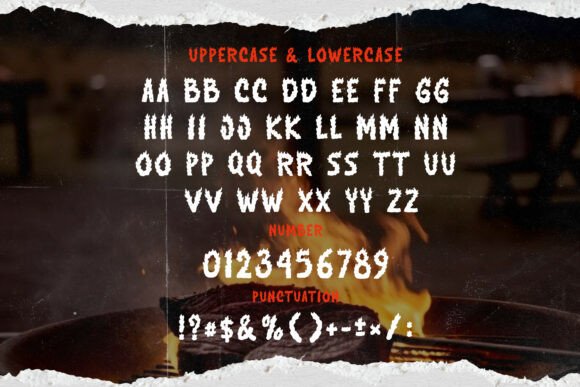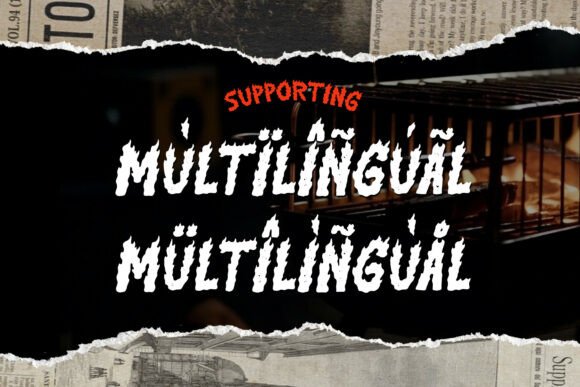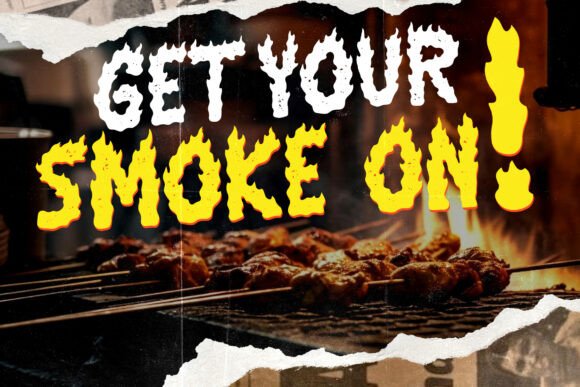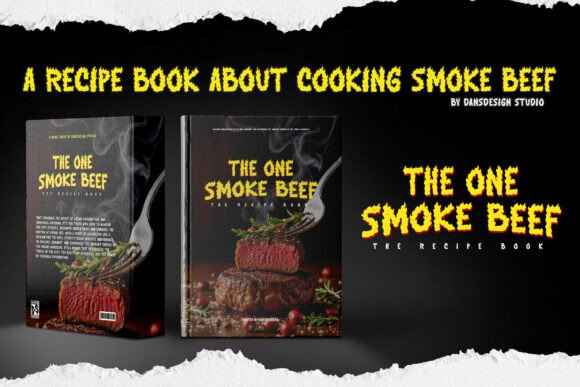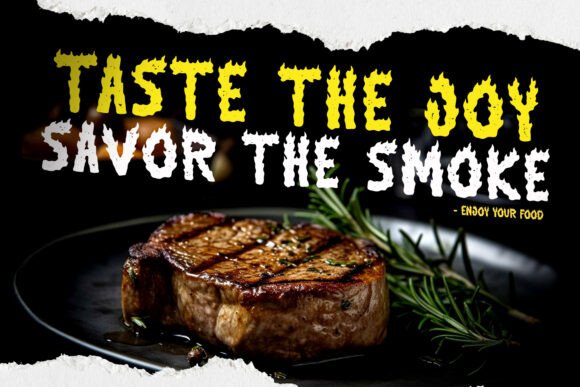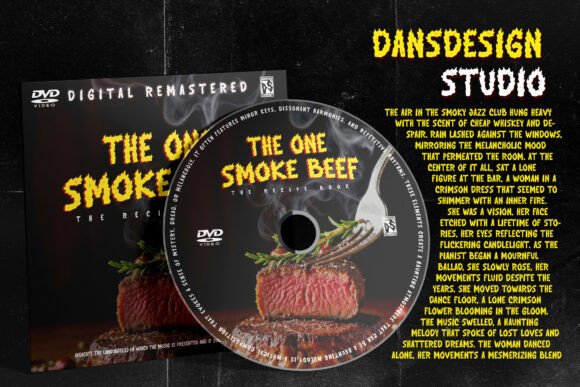
Igniting Your Design with the Bonfire Incinerate Font
Have you ever stared at a blank canvas, waiting for that spark of inspiration to strike? For designers, it’s that moment when everything comes together – a bold idea, a vibrant color palette, and the perfect font to bring it all to life. That’s where the Bonfire Incinerate Font comes in, a hand-drawn brush display font that’s as wild and unpredictable as a raging inferno.
Designed to capture the essence of BBQ branding, horror posters, and metal album covers, Bonfire Incinerate Font is the perfect tool for designers who crave raw energy and attitude in their work. With its molten strokes and scorched textures, this font is sure to dominate your design with heat and aggression. Whether you’re creating a horror movie title, a BBQ festival flyer, or a spicy food label, Bonfire Incinerate Font delivers the punch you need to make your design stand out.
- Unique Characteristic: Distressed, Incinerated, and Burnt Effects, giving it a unique, post-apocalyptic aesthetic
Bonfire Incinerate Font Review
I was excited to dive into the Bonfire Incinerate Font, but my experience was a mix of highs and lows. Here’s my honest review.
- Unique Design: The Bonfire Incinerate Font has a bold, edgy feel that sets it apart from more traditional fonts.
- Energetic Vibes: This font is perfect for creating high-energy designs, whether it’s for a sports team, action movie, or extreme sports brand.
- Customization Options: The font comes with a range of customization options, allowing you to fine-tune the look to fit your specific needs.
- Readability Issues: While the font looks great, it can be difficult to read, especially in smaller sizes or for lengthy blocks of text.
- Limited Legibility: The font’s bold lines and sharp edges can make it challenging to discern individual letters, leading to mistakes and misreadings.
- Lack of Versatility: While the font is great for high-energy designs, it may not be the best choice for more subdued or professional projects.
Overall, the Bonfire Incinerate Font is a great choice for those looking to add a bold, edgy feel to their designs. However, its limitations should be taken into consideration, especially when it comes to readability and legibility.
The Bonfire Incinerate font is ideal for:
- Edgy, modern designs
- Emphasis on action or energy
- Creating a bold, attention-grabbing headline
What is the recommended font size for the Bonfire Incinerate Font?
The recommended font size for the Bonfire Incinerate Font is between 12-24 points for body text and 36-48 points for headings. However, font size ultimately depends on your design and the desired visual impact.
Does the Bonfire Incinerate Font support Unicode characters?
Yes, the Bonfire Incinerate Font supports Unicode characters up to U+10FFFF, ensuring compatibility with languages that require extended character sets.